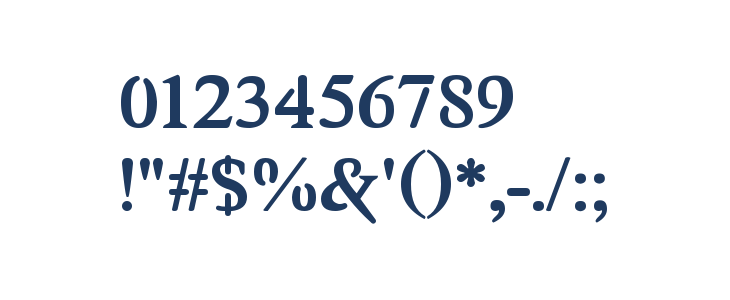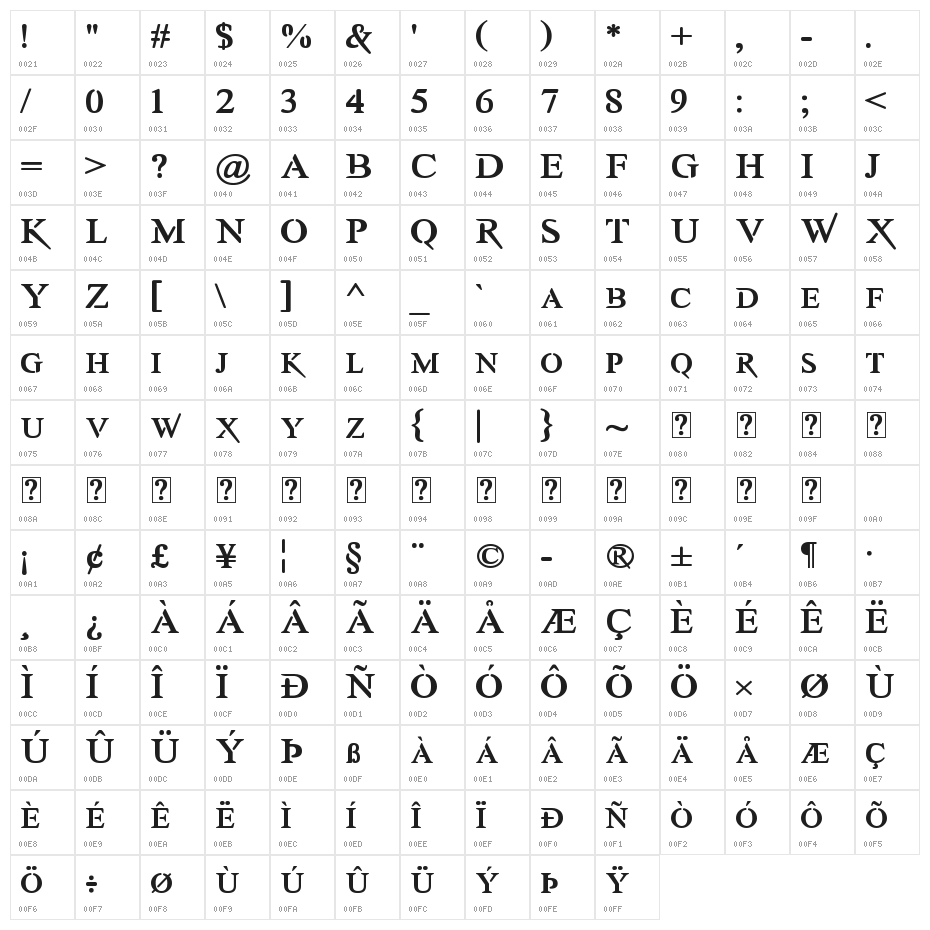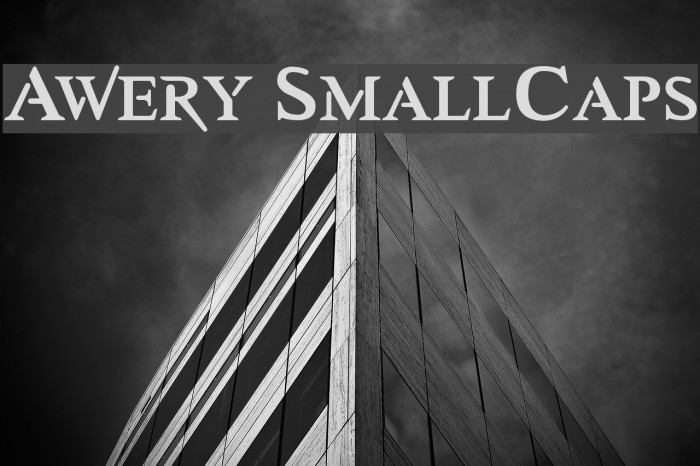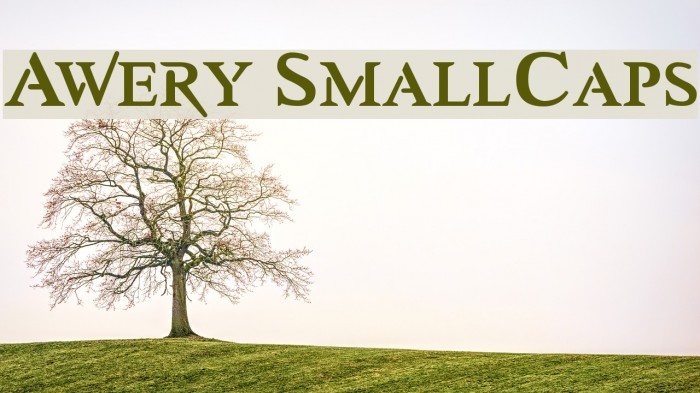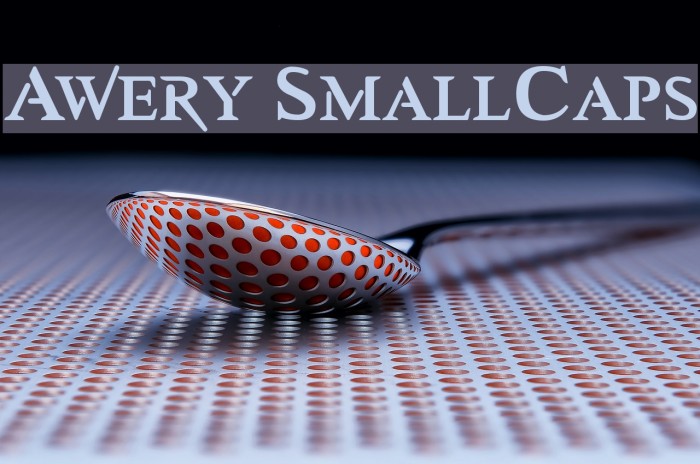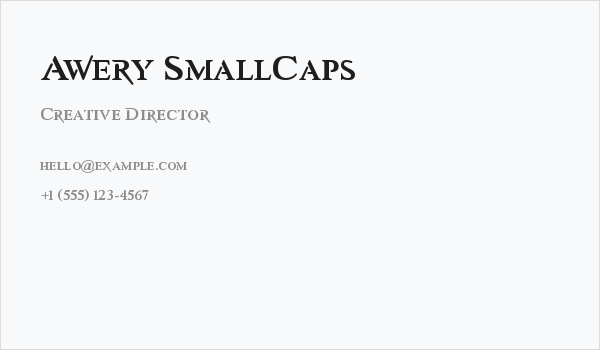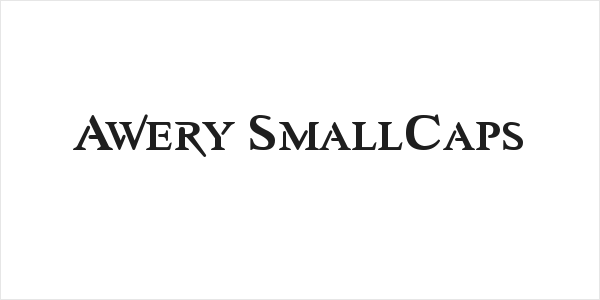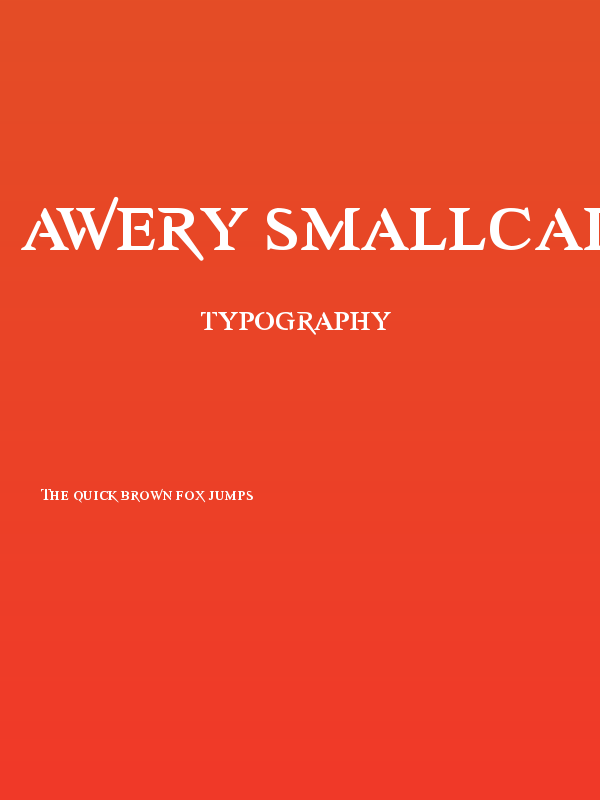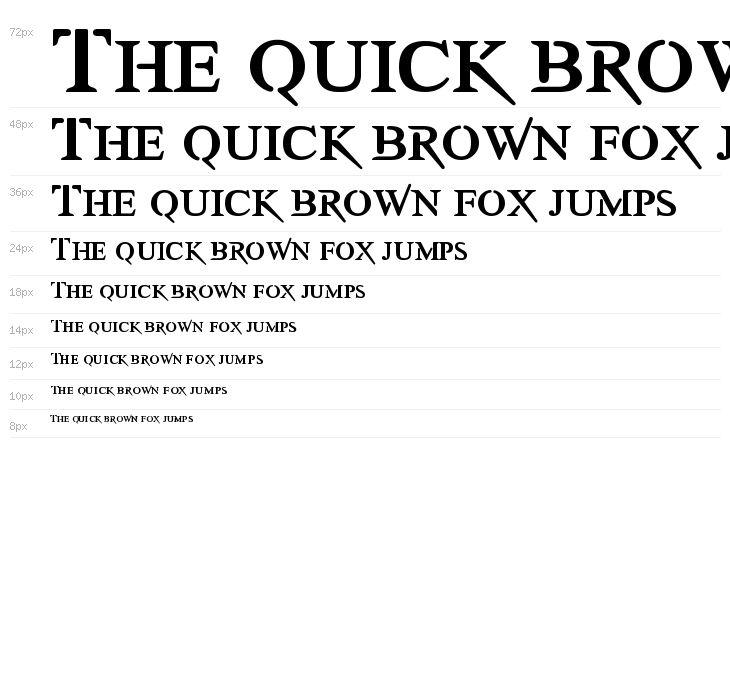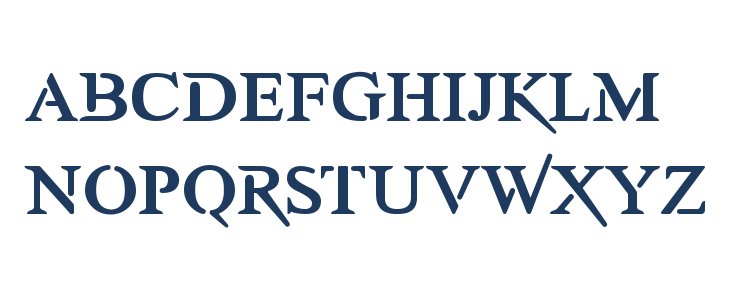
Awery SmallCaps Font
Awery SmallCaps Description
This font exhibits a classic serif style with a distinctive flair. Each character is adorned with sharp, angular serifs that give it a bold and authoritative presence. The uppercase letters are uniform and balanced, while the lowercase letters maintain a consistent style that complements the uppercase. The numerals are clear and legible, featuring the same serif detailing. Special characters are well-defined, ensuring versatility in various applications. The overall design is reminiscent of traditional serif fonts but with a modern twist, making it suitable for both formal and contemporary uses.
Overall StyleClassic
Proposed ProjectsIdeal for book covers, editorial design, branding, and formal invitations.